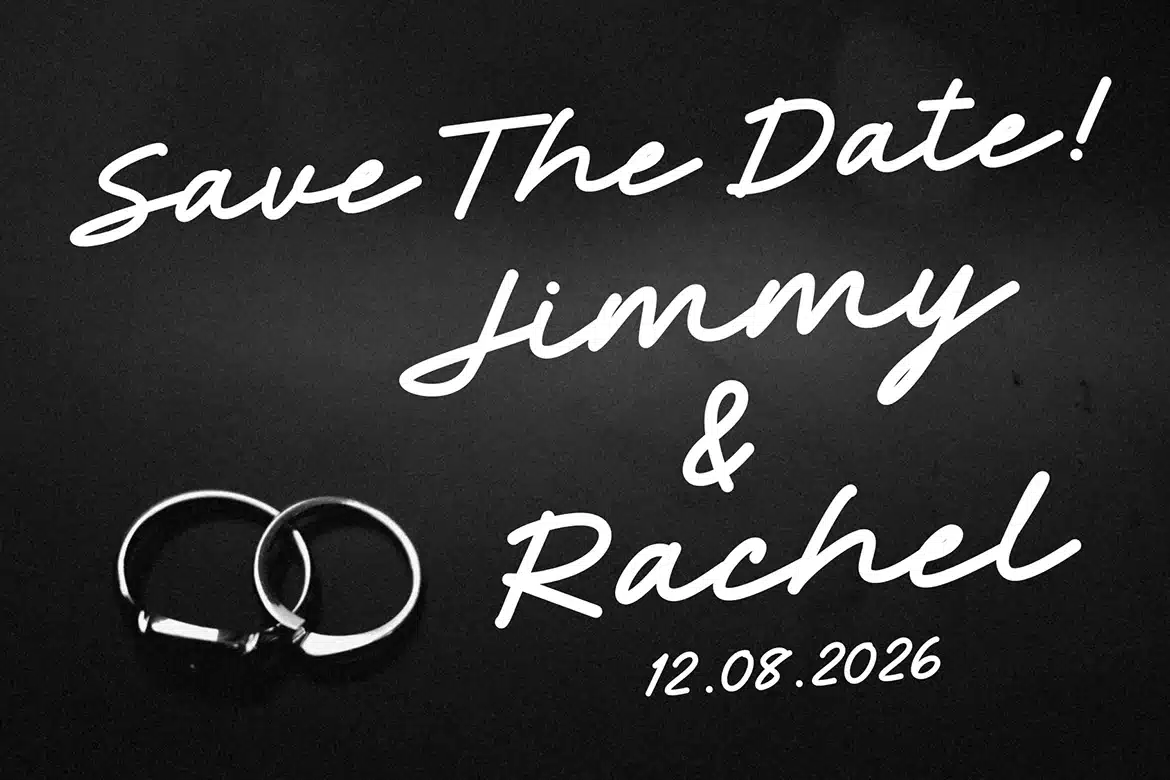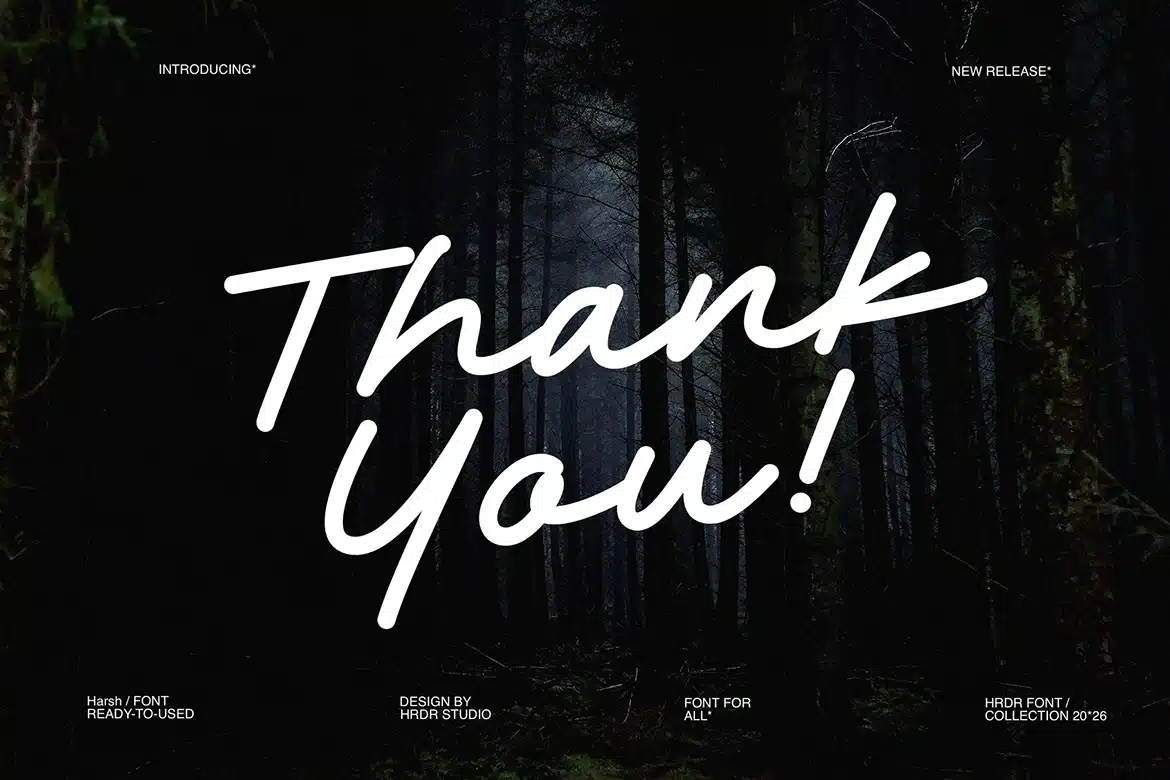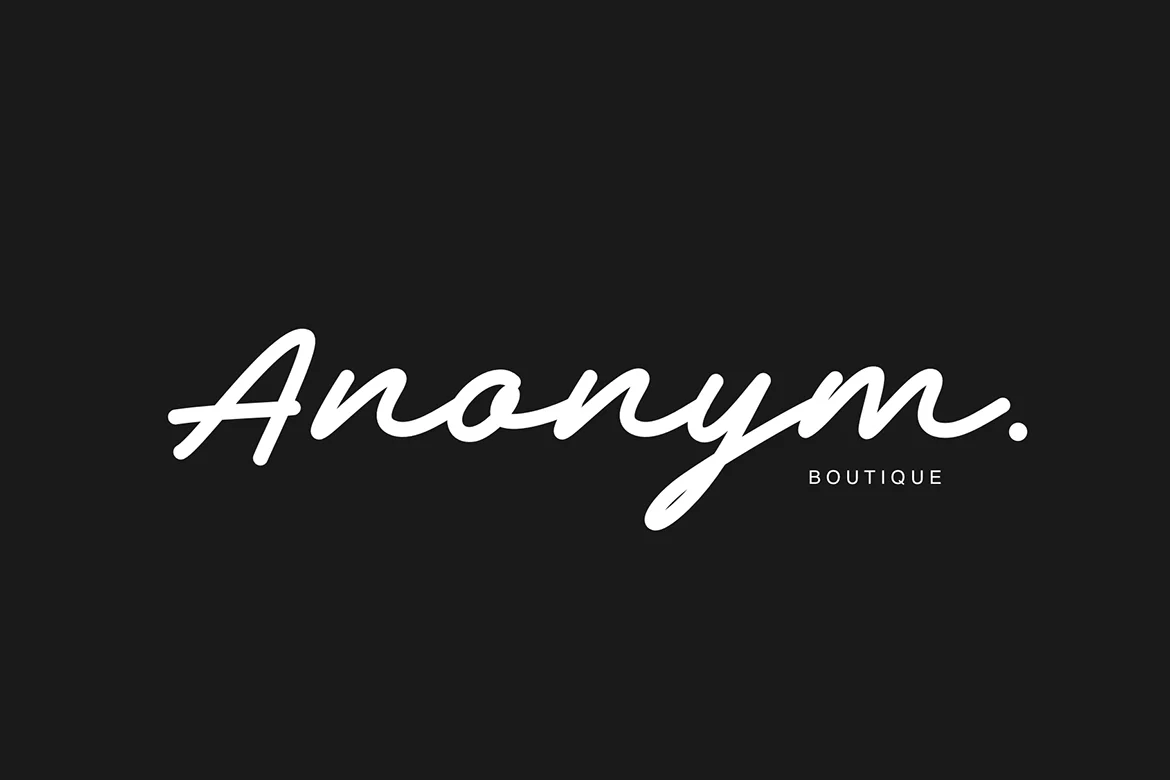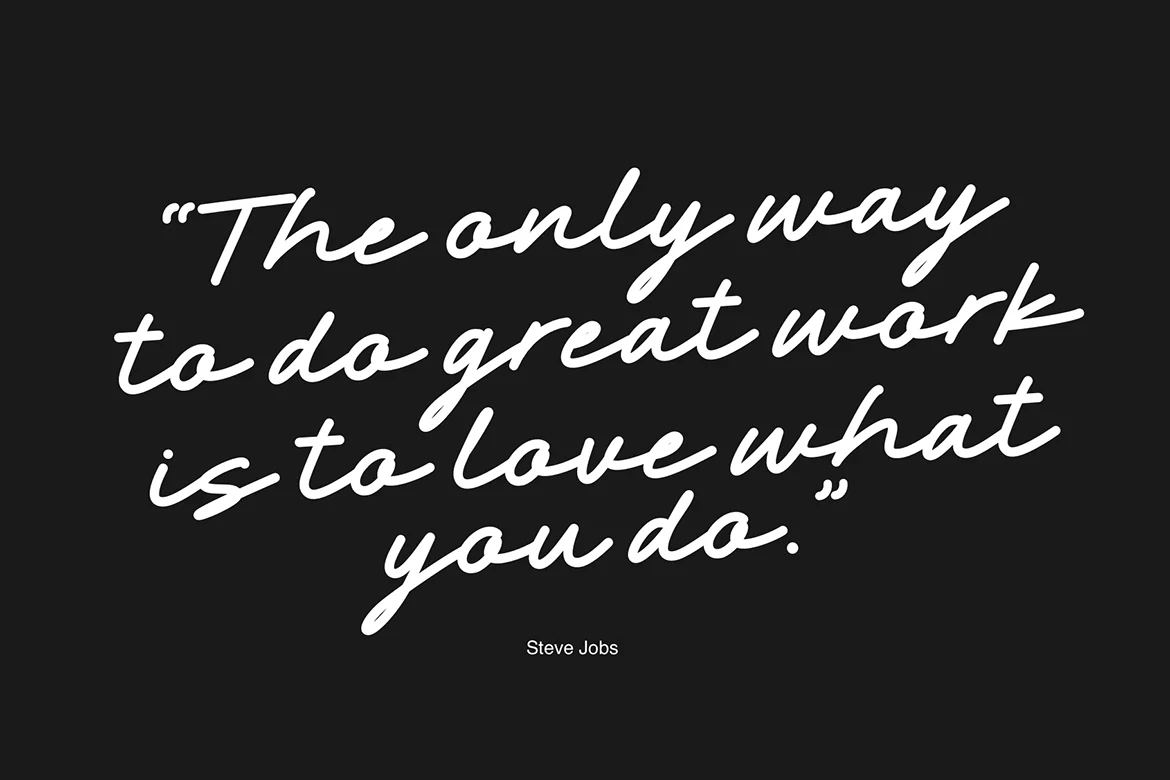
Harsh Font
Say hello to Harsh! Harsh is a Modern elegant font, perfect for crafting, branding, invitation, stationery, wedding designs, social media posts, Logo, advertisements, product packaging, product designs, label, Posters, photography, special events, or anything.
Font Features :
- numeric & Multilingual support